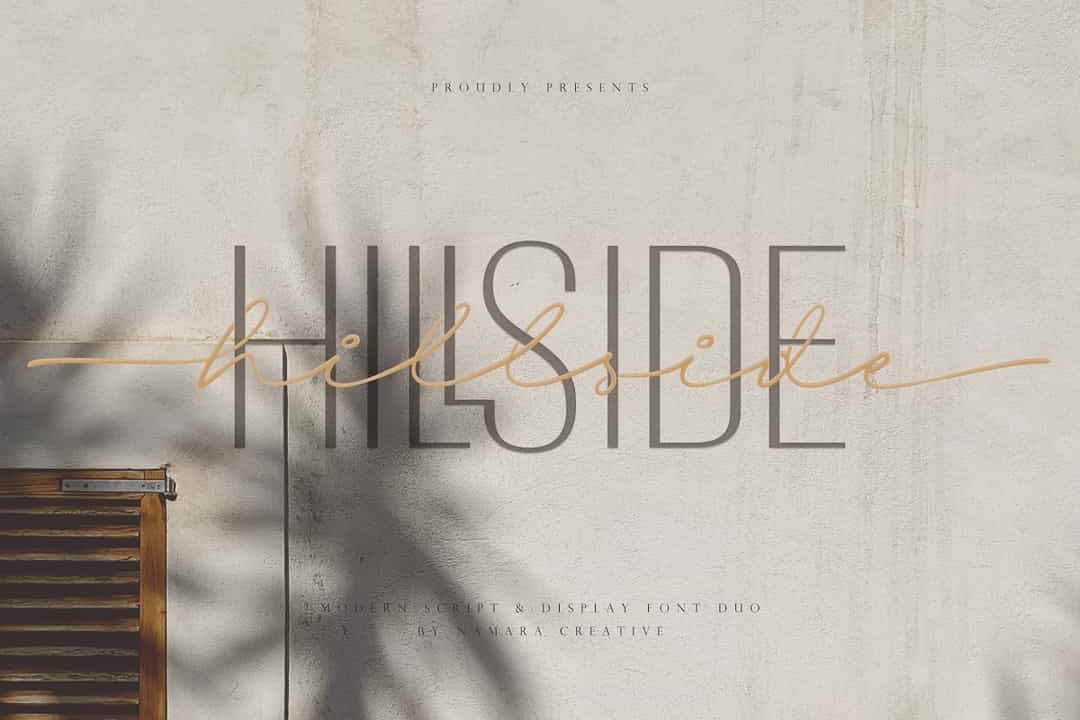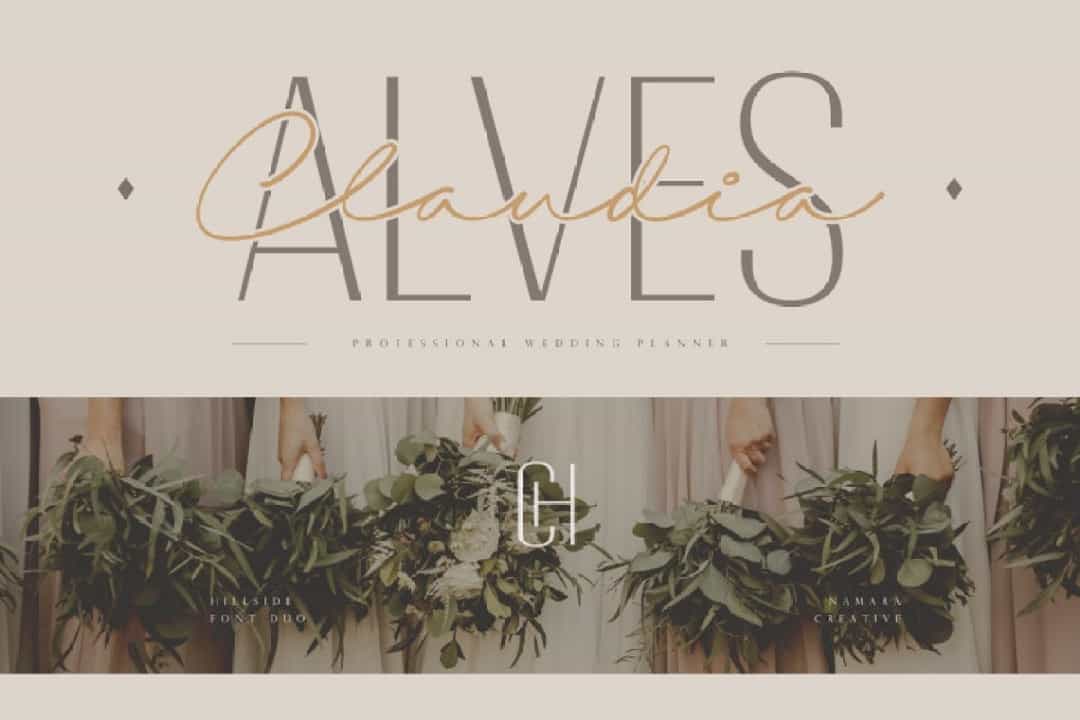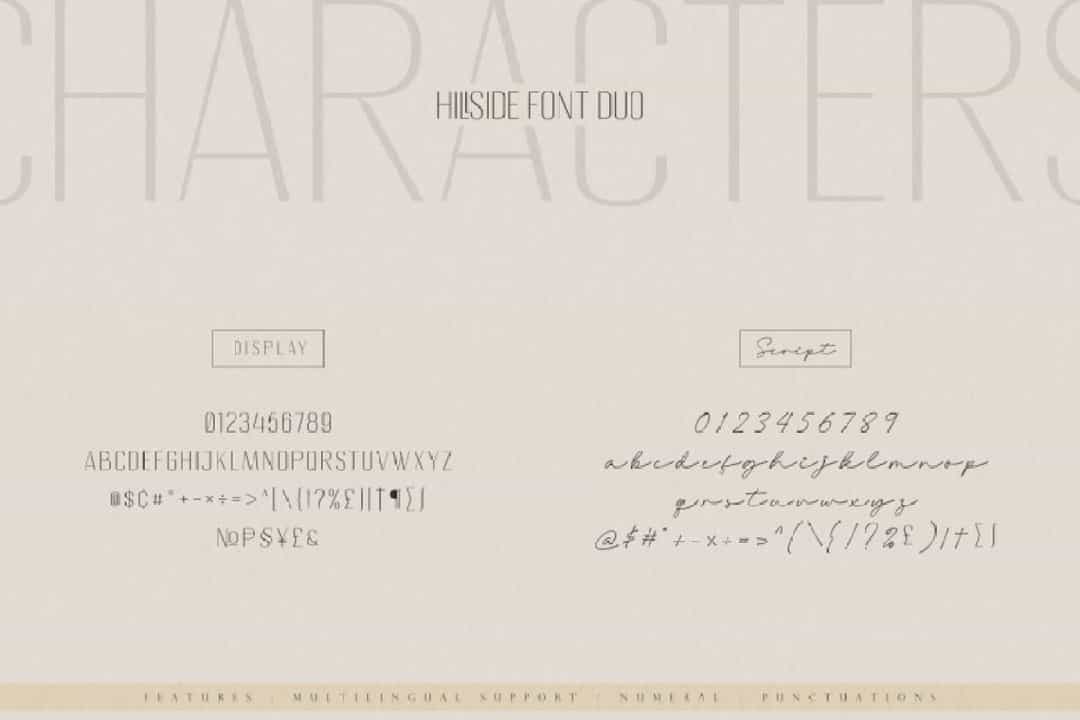
Discover Hillside Font Duo, part of the Sans Serif Handwritten collection—a versatile and unique font perfect for adding a personal touch to your projects. Download it for free and enjoy crafting designs with style, from invitations to social media posts. This font is available exclusively for personal use, giving you the freedom to create without limits. Unlock your creativity with Hillside Font Duo today!
Hillside Modern Font Duo. The best of both worlds – simplicity and elegance! This font duo is made of a clean and minimalist display font that will give you the modern look. Besides, the cursive script font style is full of sophistication and elegance which are perfect for personalized and decorative designs.